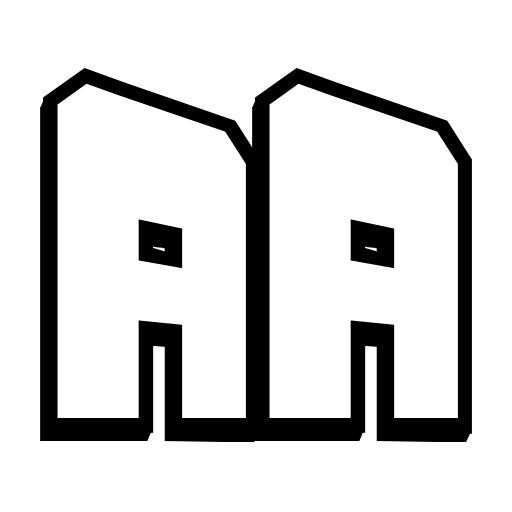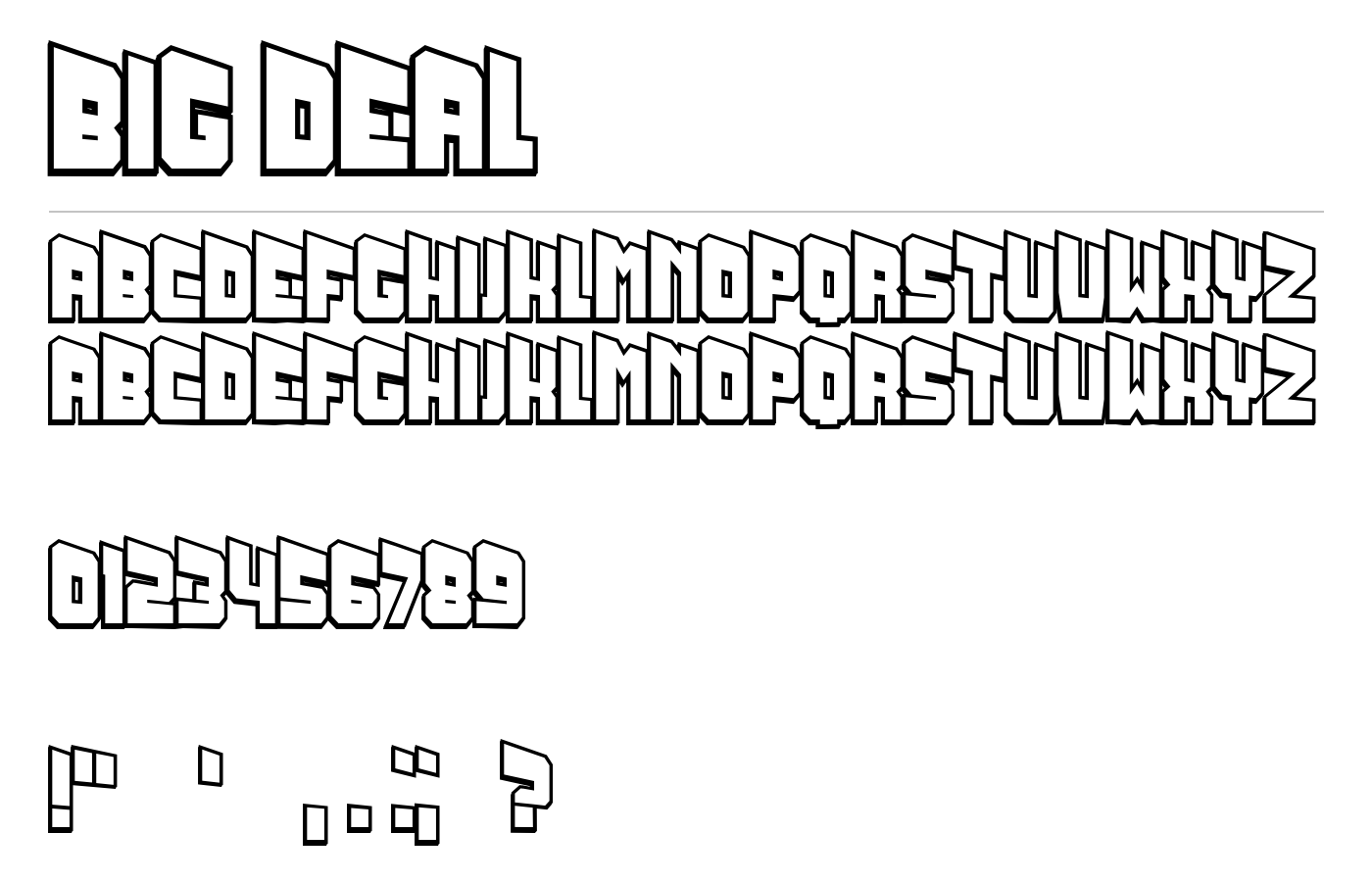
Big Deal Font is a bold, geometric sans serif typeface with a striking three-dimensional effect, characterized by its strong blocky letterforms and sharp angles. Its high-impact style and all-caps presentation make it perfect for headlines, logos, and playful branding that demands attention with a modern, energetic vibe. This font works especially well in contexts where a fun yet commanding display is needed, such as posters, sports themes, or youth-oriented designs.
Big Deal Font
About Big Deal Font